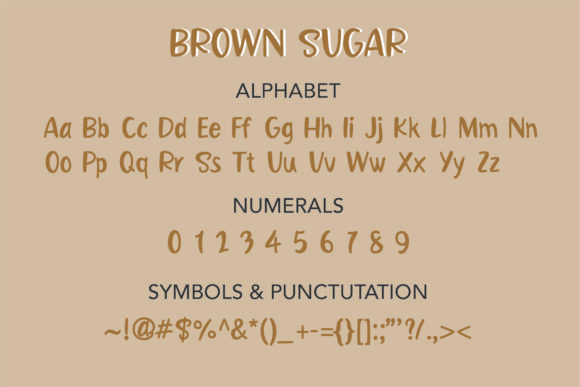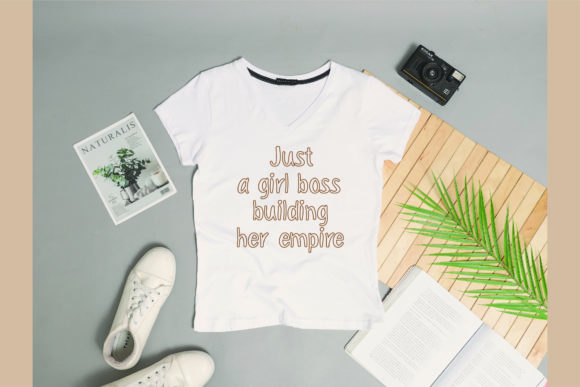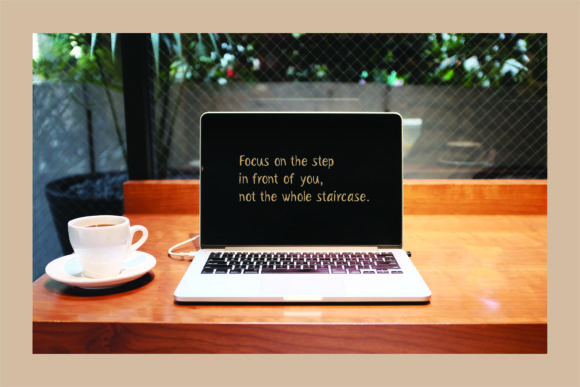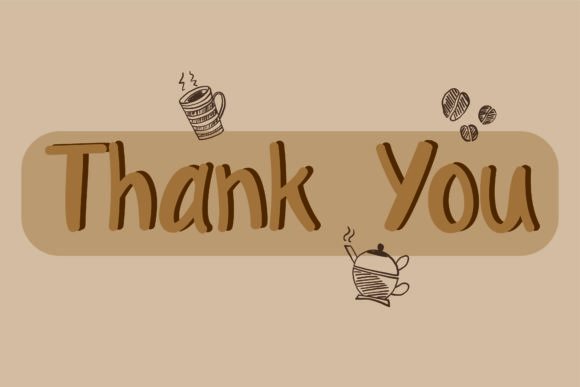
The Perfect Blend: Elevate Your Creations with the Brown Sugar Font
Have you ever found yourself staring at a blank canvas, desperately searching for the perfect font to bring your idea to life? That’s exactly where I was when I stumbled upon the Brown Sugar Font. It’s like a warm hug in font form – neat, bold, and adaptable, making it the perfect addition to any designer’s library.
Brown Sugar Font is a display font designed to elevate any creation, whether it’s a logo, a poster, or a social media graphic. Its versatility makes it a valuable asset for designers, allowing them to experiment with different styles and themes. With its bold and approachable personality, the Brown Sugar Font is sure to add a touch of sophistication to any project.
Brown Sugar Font Key Features
- Unique Characteristics: Brown Sugar is a handwritten font with a unique, elegant, and vintage feel, featuring subtle imperfections and irregularities that give it a personal touch.
- Font Weight and Style: The font comes in multiple weights, including Light, Regular, Medium, Bold, and Extra Bold, as well as italics and obliques for added versatility.
Brown Sugar Font Review
Overall, I think the Brown Sugar Font is a charming addition to any design project. Here’s what I like about it:
- ✨ The font’s vintage aesthetic is perfect for creating a nostalgic or retro vibe in designs.
- ✨ The font’s bold and playful personality makes it ideal for use in titles, headings, and other attention-grabbing text.
- ✨ The font’s unique character set makes it easy to differentiate your design from others.
- ⚠️ The font may not be suitable for use in body text due to its playful and bold nature.
- ⚠️ The font’s vintage aesthetic may not appeal to all audiences, particularly those who prefer more modern or minimalist designs.
- ⚠️ The font may require some additional styling or pairing to ensure it works well in different contexts.
Overall, I think the Brown Sugar Font is a great choice for designers looking to add some personality and whimsy to their projects. With a little creativity and styling, this font can add a lot of charm and character to your designs.
Tips for Getting the Most Out of Brown Sugar Font
For best results, use Brown Sugar Font in contexts where a vintage, distressed look is desired. This font pairs well with bold, bright colors and classic typography.
Brown Sugar Font is commonly used for:
- Vintage-themed posters and advertisements
Alternatives to Brown Sugar Font
Playfair Display is an elegant and luxurious serif font. It’s ideal for creating high-end, sophisticated designs, such as fashion magazines, luxury brands, and formal invitations. Compared to Brown Sugar Font, Playfair Display has a more refined and classic feel, with intricate details and a wide range of weights.
Pacifico is a beautiful and stylish script font. It’s perfect for creating warm and inviting designs, such as coffee shops, restaurants, and travel websites. Unlike Brown Sugar Font, Pacifico has a more relaxed and casual feel, with a focus on handwritten elegance.
Great Vibes is a modern and elegant script font. It’s suitable for creating high-end, stylish designs, such as fashion brands, beauty products, and lifestyle magazines. Compared to Brown Sugar Font, Great Vibes has a more refined and sophisticated feel, with a focus on clean lines and minimalist design.
Lobster is a fun and playful script font. It’s ideal for creating casual and relaxed designs, such as food trucks, coffee shops, and entertainment websites. Unlike Brown Sugar Font, Lobster has a more laid-back and humorous feel, with a focus on quirky charm and personality.